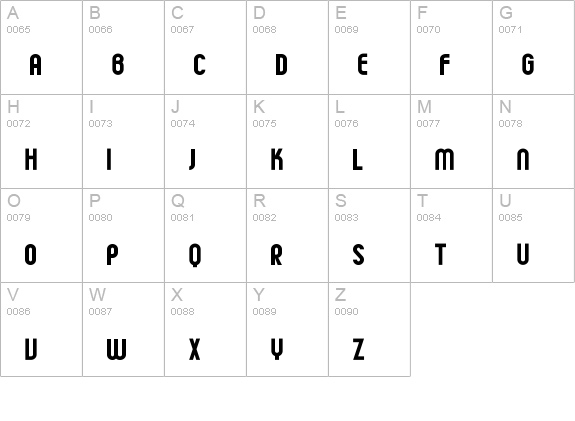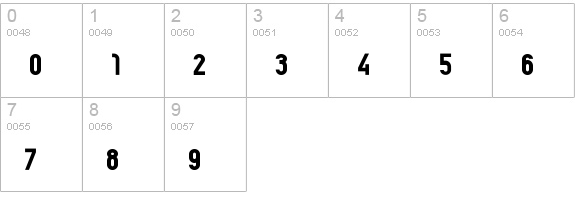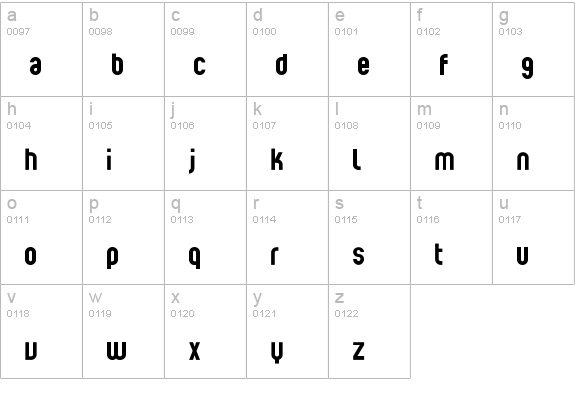
Globus font is a modern and stylish typeface that exudes sophistication and elegance. With its clean lines and sleek design, Globus is perfect for a wide range of design projects, from branding to web design. This versatile font is sure to make a statement and elevate the look of any project. What makes Globus font even more appealing is that it is available for free download at FontsMarket.com. This means that you can easily access and use this beautiful font in your projects without any cost. Don't miss out on the opportunity to enhance your designs with the stunning Globus font – download it today and see the difference it can make!